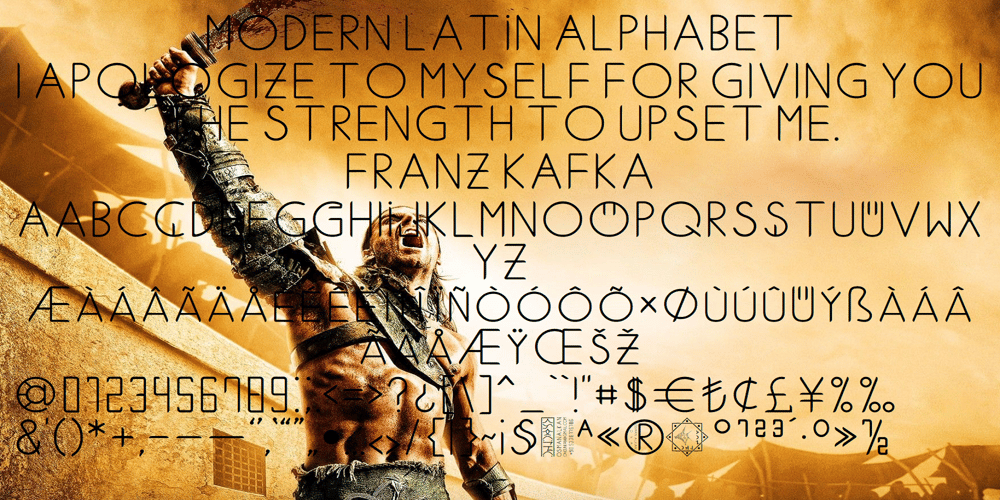
Ongunkan Modern Latin Font Family was designed by Osman Nuri ALKAN and published by Runic World Tamgacı. Ongunkan Modern Latin contains 1 styles and family package options. I present a beautiful interpretation of the Modern Latin Alphabet, in which the foundations of today’s modern world and civilization have risen, enjoy it.